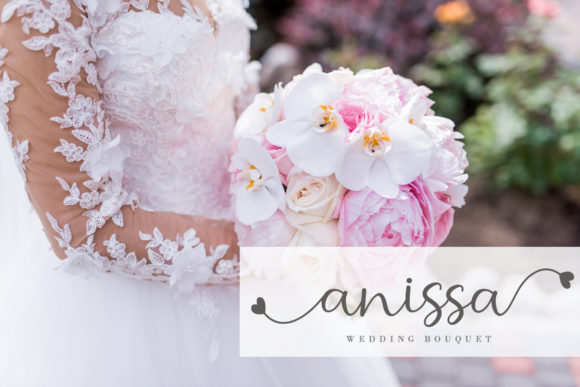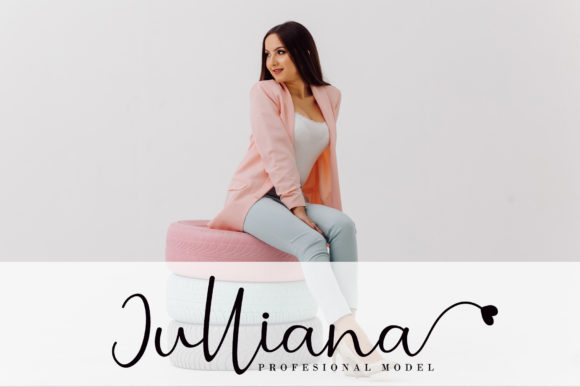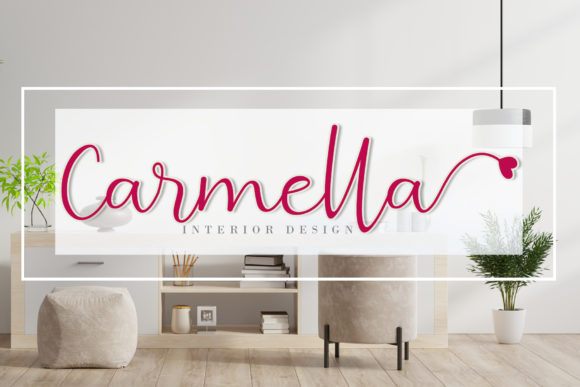
Introduction to Sallsa Font
Have you ever stared at a blank page, trying to find the perfect font to capture the essence of your creative project? The cursor blinks, taunting you, as you search for that elusive ‘wow’ factor. That’s where the Sallsa Font comes in – a sweet and delicate handwritten font that adds a touch of elegance to any design.
As a designer, you understand the value of a high-quality design resource. The Sallsa Font is more than just a pretty face; it’s a versatile tool that can be used for wedding invitations, thank you cards, quotes, greeting cards, logos, business cards, and any other design that requires a handwritten touch.
With its PUA encoded features, accessing all the glyphs and swashes is a breeze, making it a valuable addition to your design arsenal. Whether you’re working on a free download project or creating a commercial design, the Sallsa Font is sure to impress with its transparent background and endless design possibilities.
Key Features of Sallsa Font
- Unique, modern font with a transparent background, ideal for use in digital designs.
Honest Review: Sallsa Font
I recently came across the Sallsa Font and I must say, it’s a game-changer for any creative project. The high quality of this font is immediately apparent, making it a valuable addition to any design resource.
What works well with the Sallsa Font is its versatility and wide range of applications. It’s perfect for use on logos, branding materials, and even digital interfaces. The transparent background allows for seamless integration into any design, making it a breeze to work with.
- ✨ Customizable: The Sallsa Font comes with various styles and weights, making it easy to find the perfect fit for your project.
- ✨ High-resolution: The font is available in high-resolution, ensuring that it looks great on any device or screen size.
However, there are a few limitations to consider. The Sallsa Font may not be the best choice for projects that require a lot of bold, dramatic typography ⚠️. Additionally, some users may find the font’s simplicity a bit too minimalist ⚠️.
Overall, I’m thoroughly impressed with the Sallsa Font. Its high quality, versatility, and wide range of applications make it a valuable addition to any design resource. Whether you’re working on a creative project or just need a reliable font, the Sallsa Font is definitely worth checking out.
Use the Sallsa Font in combination with other design elements to create a unique and eye-catching design. Experiment with different font sizes and styles to find the perfect look for your creative project.
The Sallsa Font is ideal for use in logos, branding materials, and marketing materials. Its high-quality design makes it perfect for use in business cards, brochures, and other print materials.
Compared to Sallsa Font, Great Vibes Font has a more refined and polished look, making it suitable for formal events and corporate branding. However, Sallsa Font has a more playful and casual vibe, making it ideal for creative and artistic projects.